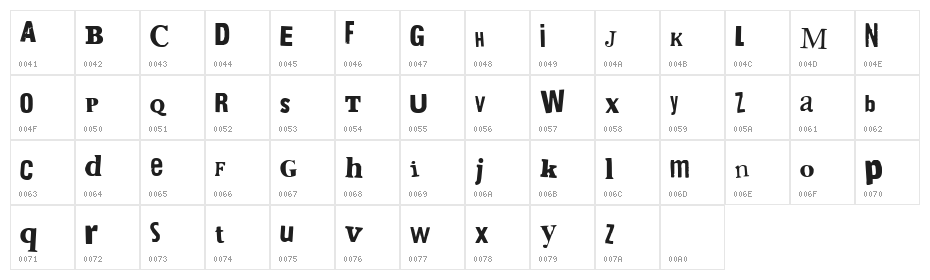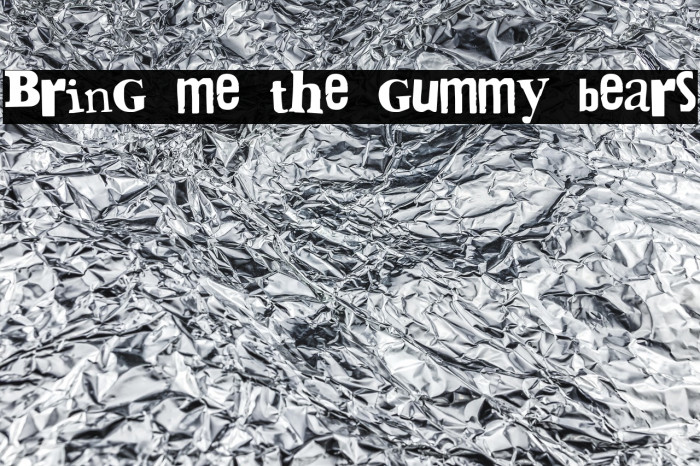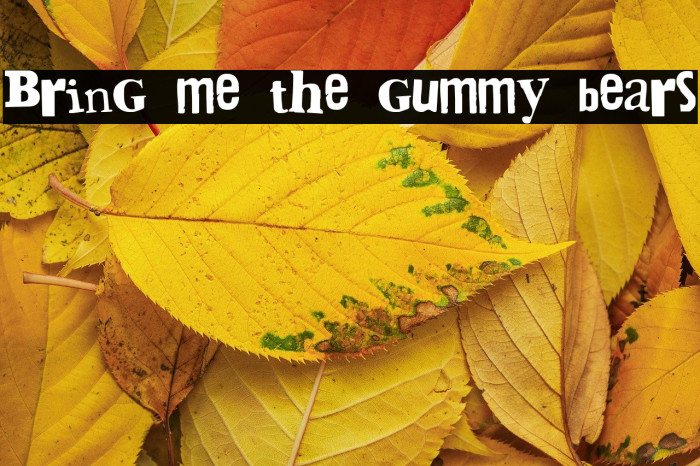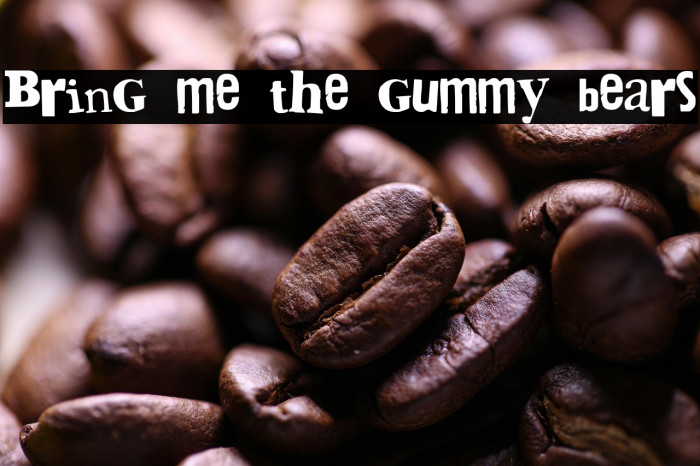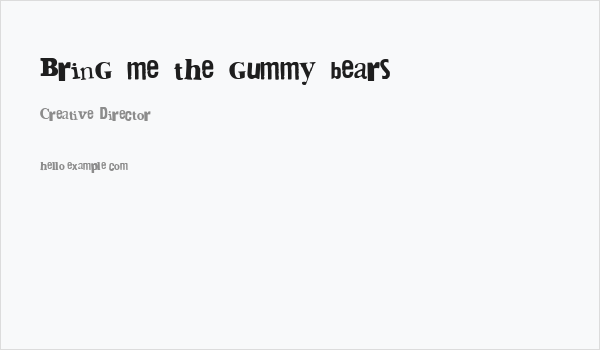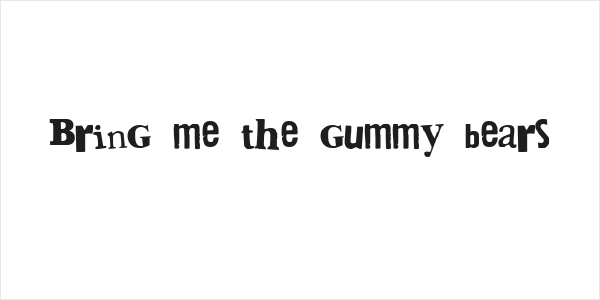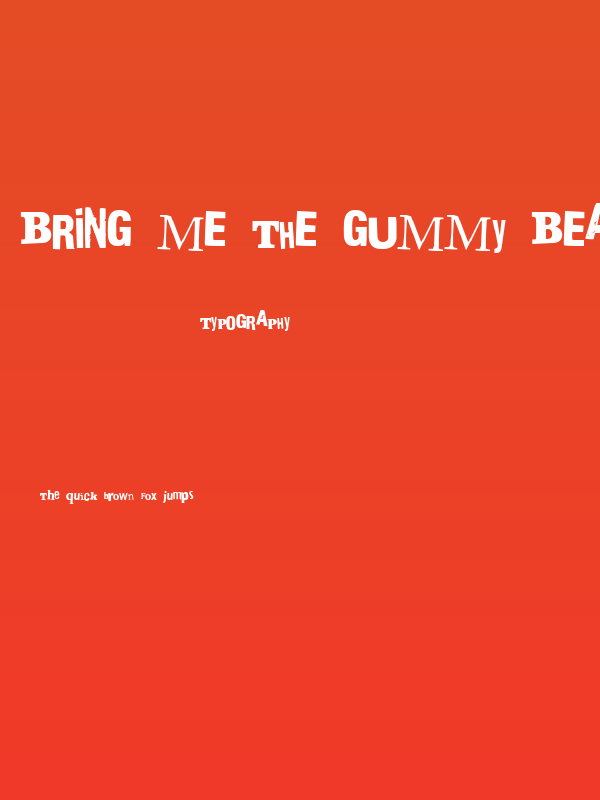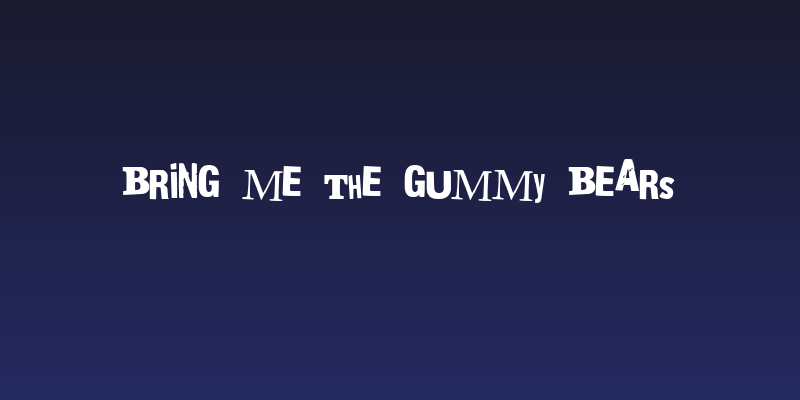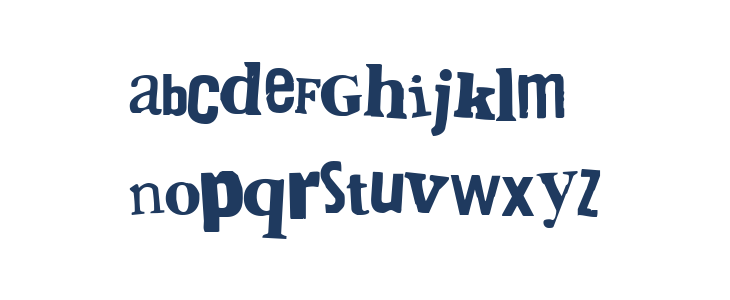
Bring me the gummy bears Font
Bring me the gummy bears Description
This playful and quirky font features a mix of bold and irregular letterforms, giving it a hand-drawn and whimsical appearance. The uppercase letters are particularly bold, with varying stroke thicknesses that add to its dynamic and energetic feel. The lowercase letters maintain this playful style, with some characters leaning or tilting, enhancing the font's informal and fun nature. The numbers and special characters follow the same design principles, ensuring consistency throughout. This font's unique style makes it stand out, perfect for projects that require a touch of creativity and individuality.
| Overall Style | Whimsical |
| Proposed Projects | Ideal for children's books, playful branding, creative posters, and informal invitations. |